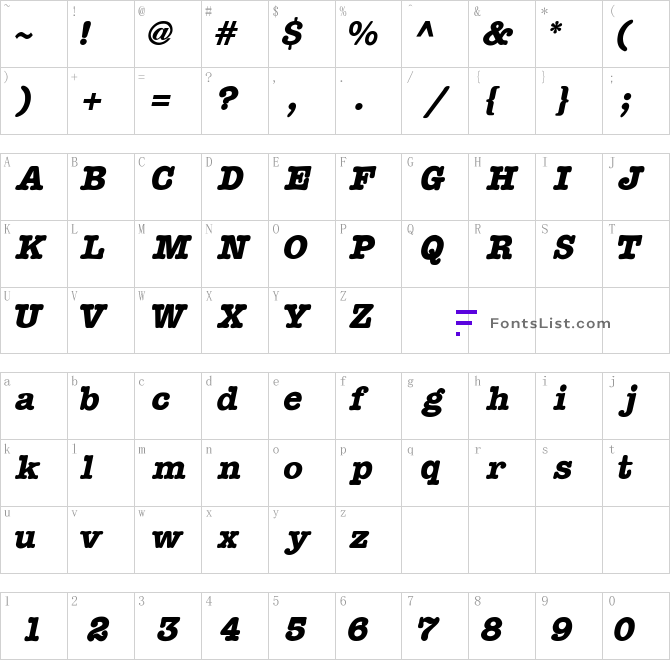
Amer_Typewrtr-X.ttf is a very beautiful artistic font, Amer_Typewrtr-X.ttf is widely used in the design and printing of various books and pictures,Amer_Typewrtr-X.ttf has a strong visual impact,Amer_Typewrtr-X.ttf is a commonly used font in newspapers, magazines and books, and is used in posters, e-commerce Poster design, store design, logo design, font design and other fields.Amer_Typewrtr-X.